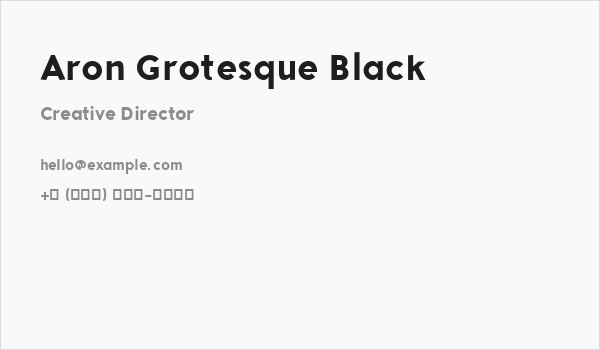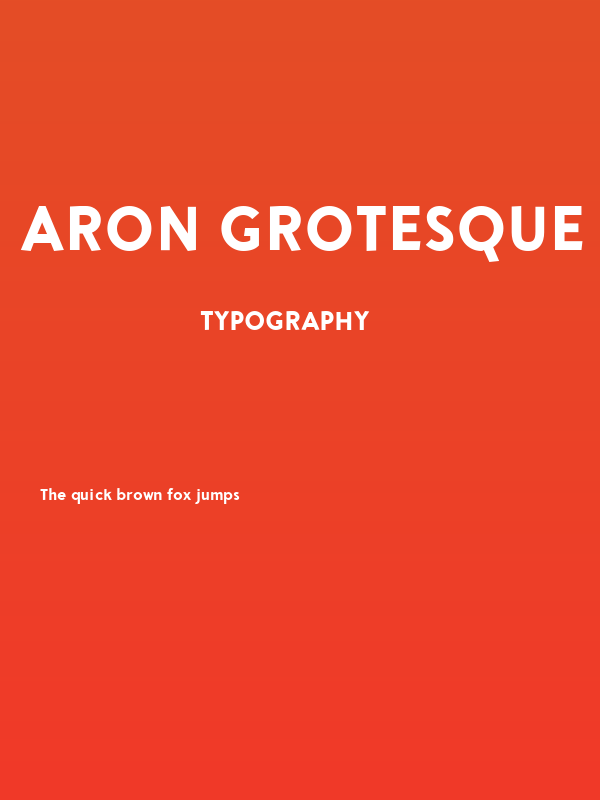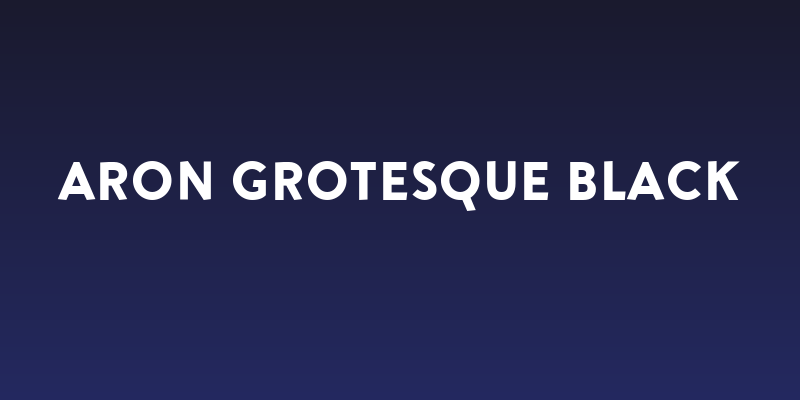
Aron Grotesque Black Font
Aron Grotesque Black Description
This font features a bold and modern sans-serif design with clean, geometric lines. The uppercase letters are strong and assertive, while the lowercase characters maintain a consistent weight, offering a harmonious balance. The numerals are clear and legible, making them suitable for various applications. Special characters are well-defined, adding to the font's versatility. Its overall appearance is sleek and contemporary, making it ideal for projects that require a strong visual impact.
| Proposed Projects | Ideal for branding, advertising, headlines, and digital media where a strong, modern look is desired. |